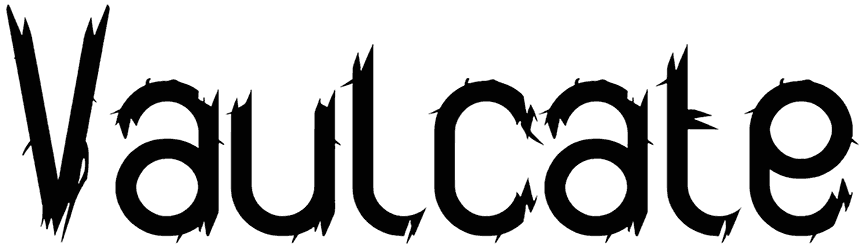
Vaulcate Font
Meet Vaulcate, a unique horror font with a spooky and stressful face. This pickup is able to illustrate your designs, such as games, movie posters, graphics, and other kinds of stuff. Although Vaulcate doesn’t give you punctuation marks and several numbers, having four versions would make up for this lack.